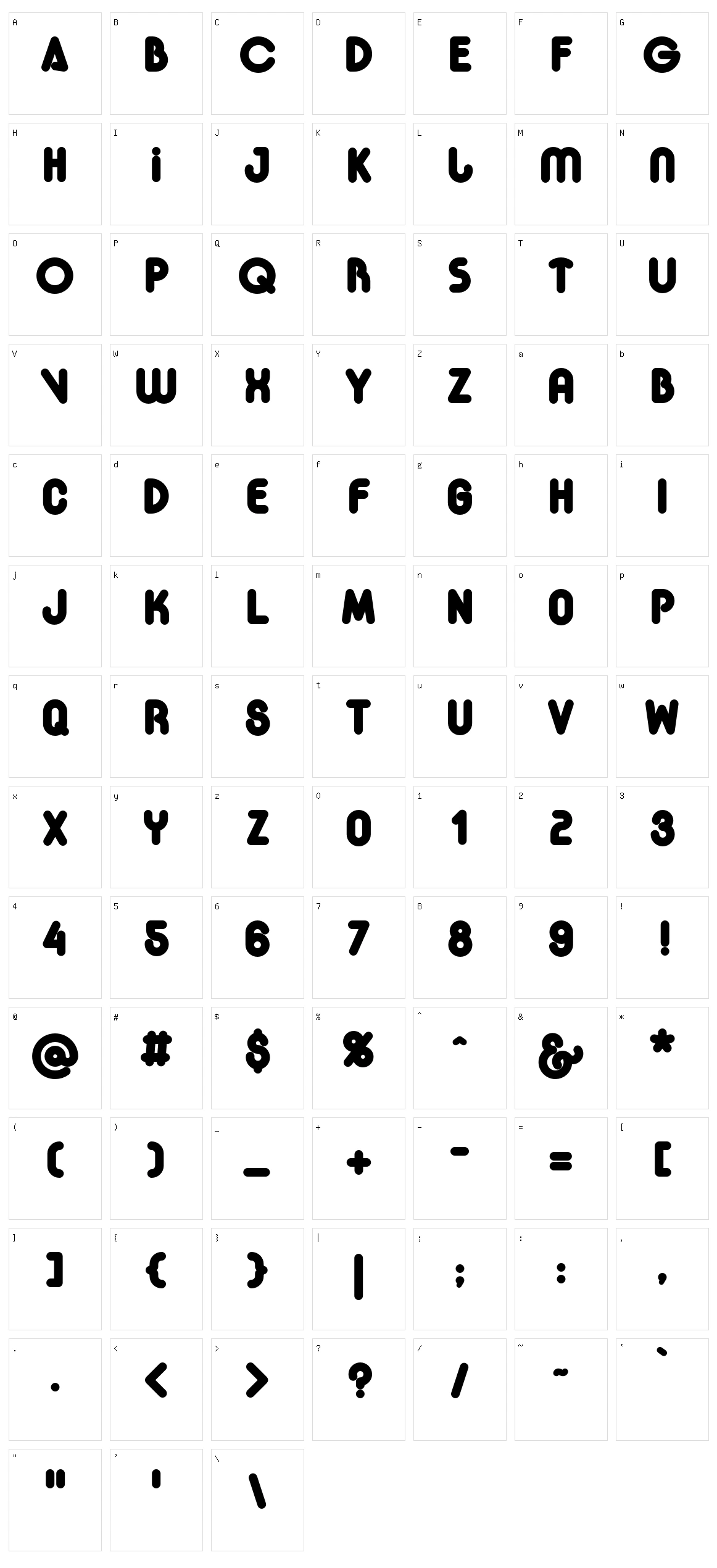
The free font Garoa Hacker Clube is carefully designed by Just in Type, showcasing a thoughtful balance of creativity and usability and falls under the Groovy font style. When you download the ZIP file, it contains only 27.7 KB of font files, making it lightweight and quick to download. Please review the license details below to understand permitted usage and distribution rights. If license information is not available, we recommend using this font for personal projects only or contacting the author directly for commercial usage permissions.